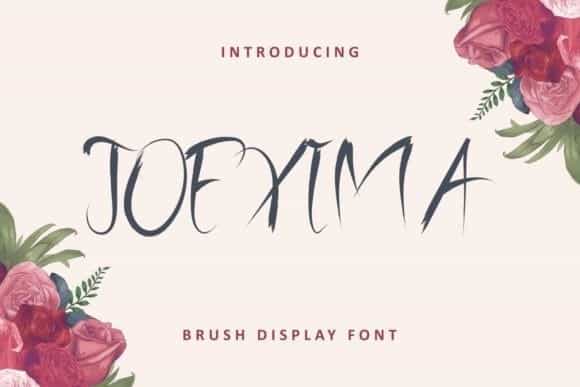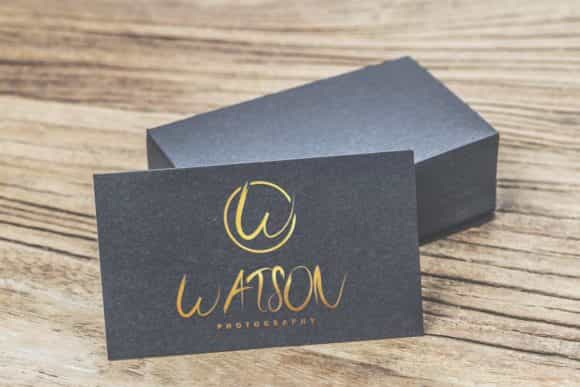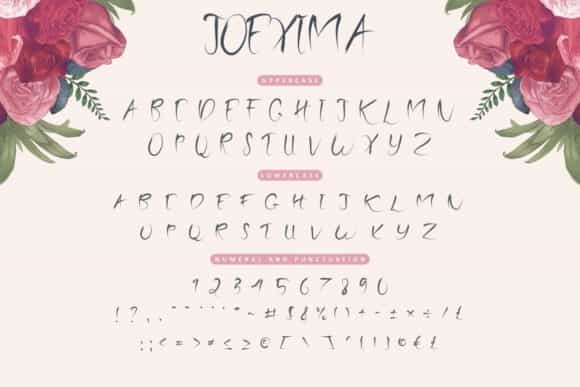
Introducing Joexima a handwritten brush fonts with a sharp and full of energy attitude. Joexima is all set and pumped to make a big statement on your logo designs, brand imagery, handwritten quotes, product packaging, merchandise, music projects & social media posts. Lets enjoy it!